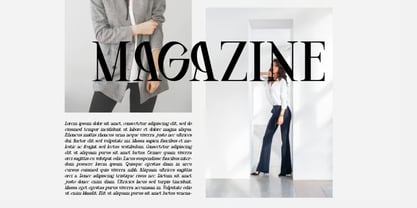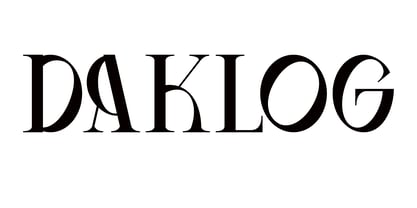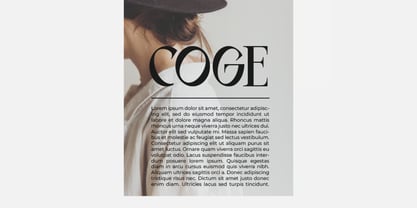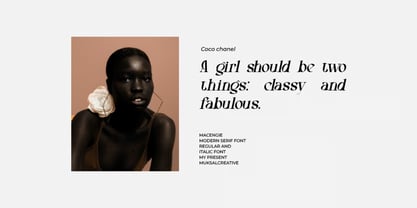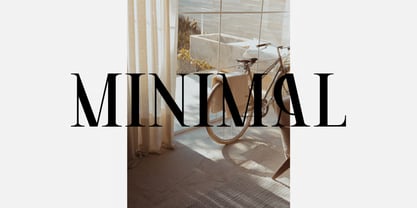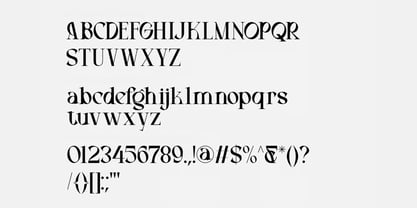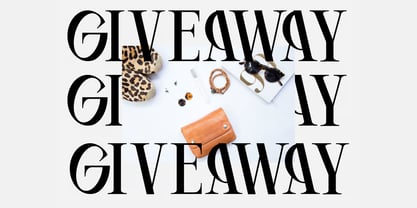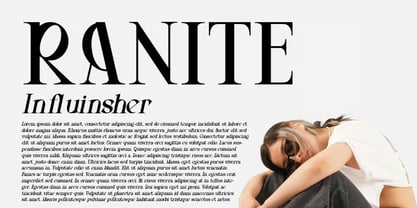
Daklog
The Daklog Font Family was designed by Hasnat Khan and published by Hasnat Studio. Daklog contains 1 styles. More about this family
Daklog is a refined modern serif typeface crafted with elegant curves, balanced proportions, and stylish alternates. Designed for versatility and visual impact, Daklog performs beautifully across both high-end display applications and subtle typographic compositions, making it a powerful choice for contemporary designers.
With its clean letterforms and sophisticated serif structure, Daklog delivers a timeless aesthetic that enhances branding, editorial layouts, packaging design, signage, and digital headlines. Its versatility allows it to shift seamlessly between bold statement typography and refined minimalist design.
Whether you're building a luxury brand identity, designing magazine headers, creating premium packaging, or developing modern web visuals, Daklog provides a polished and professional typographic foundation that elevates every project.
Key Features:
• Modern Serif Design: Elegant and contemporary letterforms with refined detailing.
• Stylish Alternates: Unique glyph variations for creative and expressive typography.
• Regular & Italic Styles: Flexible font pairing for dynamic design systems.
• Uppercase & Lowercase Characters: Complete character set for professional use.
• Numerals & Punctuation: Essential elements for branding and editorial layouts.
• Multilingual Support: Includes extended Latin characters for global usability.
• Clean & Balanced Structure: Designed for readability and visual harmony.
• Versatile Display Capability: Suitable for both print and digital applications.
Perfect For:
• Branding & Logo Design: Create elegant and memorable brand identities.
• Editorial Headlines & Layouts: Ideal for magazines, covers, and editorial spreads.
• Luxury Packaging Design: Perfect for cosmetics, fashion, and premium products.
• Signage & Environmental Design: Clean typography for physical and spatial branding.
• Digital Headlines & Web Design: Enhance websites with modern serif elegance.
• Advertising & Marketing Materials: Create impactful and stylish promotions.
• Creative Display Projects: Excellent for posters, presentations, and campaigns.
Elevate your creative projects with Daklog—a modern elegant serif typeface featuring stylish alternates, refined curves, and balanced typography. Perfect for branding, logos, editorial headers, luxury packaging, signage, and sophisticated digital design.